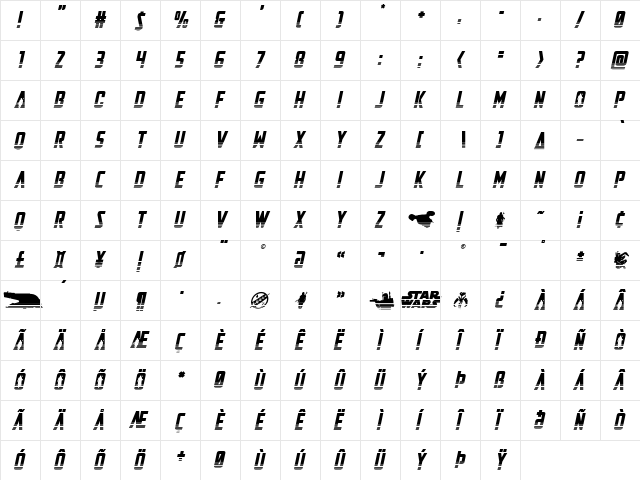
Mandalore Halftone Italic Regular
Design Context for Mandalore Halftone Italic Typeface
Mandalore Halftone Italic offers clean, dependable letterforms without strong stylistic allegiance, making it a practical choice for designers who need flexibility. Its italic angle brings a sense of urgency and motion to the letterforms.
Pro Tip: Try Mandalore Halftone Italic for annotation and caption copy alongside an upright companion — the contrast in angle creates a dynamic but ordered typographic system.